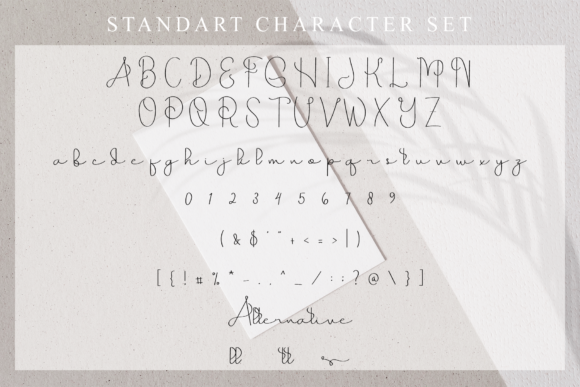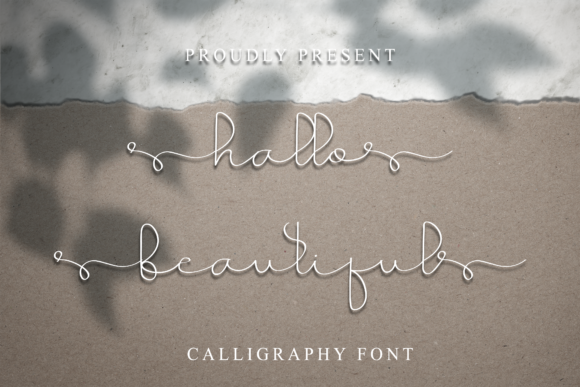
Hallo Beautiful Font: Elevate Your Designs with Elegance
In the world of typography, a font can make or break a design. For designers and crafters looking to add a touch of elegance and sophistication to their creations, Hallo Beautiful Font is an excellent choice. This thin lettered, fashionable script font is designed to impress, with its neatly crafted and highly detailed letters that can elevate any project.
The Characteristics of Hallo Beautiful Font
Hallo Beautiful is a script font that exudes elegance and refinement. Its thin letters are carefully crafted to create a sense of fluidity and movement, making it perfect for designs that require a touch of sophistication. The font’s high level of detail ensures that it remains legible, even at smaller sizes, making it versatile for use in a variety of projects.
Why Choose Hallo Beautiful Font?
So, what makes Hallo Beautiful Font a wonderful asset to your font library? Here are just a few reasons:
- Versatility: Whether you’re working on a branding project, a wedding invitation, or a fashion blog, Hallo Beautiful Font can adapt to any topic or theme.
- Elegance: The font’s thin letters and script style add a touch of sophistication to any design, making it perfect for projects that require a level of refinement.
- Legibility: Despite its delicate nature, Hallo Beautiful Font remains highly legible, even at smaller sizes, ensuring that your message is conveyed clearly.
- Detail: The font’s high level of detail makes it perfect for use in designs where precision is key, such as logos, headings, and titles.
How to Use Hallo Beautiful Font in Your Designs
Integrating Hallo Beautiful Font into your designs is easy. Here are a few tips to get you started:
- Pair it with bold fonts: Combine Hallo Beautiful Font with bold, sans-serif fonts to create a striking contrast that adds visual interest to your design.
- Use it for headings and titles: The font’s elegant style makes it perfect for use in headings and titles, where you want to make a statement.
- Add it to your branding: Hallo Beautiful Font can add a touch of sophistication to your brand’s identity, making it perfect for use in logos, business cards, and letterheads.
The Benefits of Using Hallo Beautiful Font for Crafters
Crafters, too, can benefit from using Hallo Beautiful Font in their projects. Here are just a few ways:
- Create beautiful cards and invitations: Add a touch of elegance to your handmade cards and invitations with Hallo Beautiful Font.
- Elegant journaling: Use the font to add a touch of sophistication to your journal pages, making them perfect for scrapbooking and other paper crafts.
- Custom signage: Hallo Beautiful Font can add a touch of refinement to your custom signage, making it perfect for events, weddings, and other special occasions.
In conclusion, Hallo Beautiful Font is a versatile and elegant script font that can elevate any design or crafting project. Its thin letters, high level of detail, and sophisticated style make it perfect for a wide range of applications, from branding and advertising to card making and journaling. Whether you’re a designer or a crafter, Hallo Beautiful Font is a wonderful asset to have in your font library.